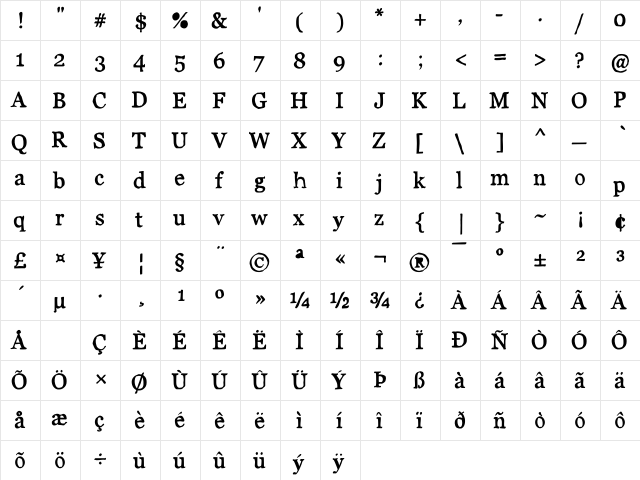
JD Carnival is a composed and adaptable typeface that performs quietly and consistently across a wide range of design contexts.
Pro Tip: Use JD Carnival in both headline and body roles to test its range before committing to a single application.